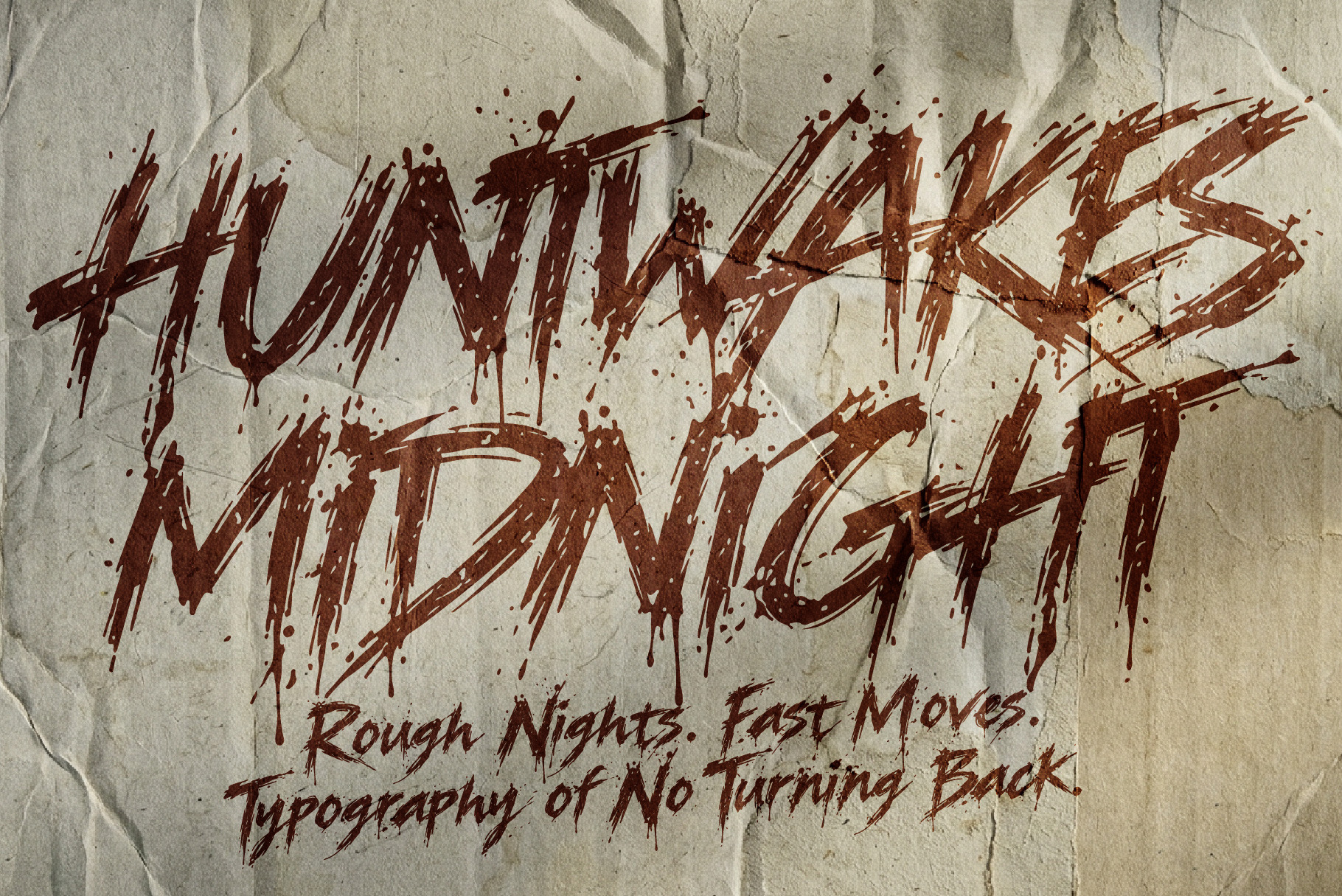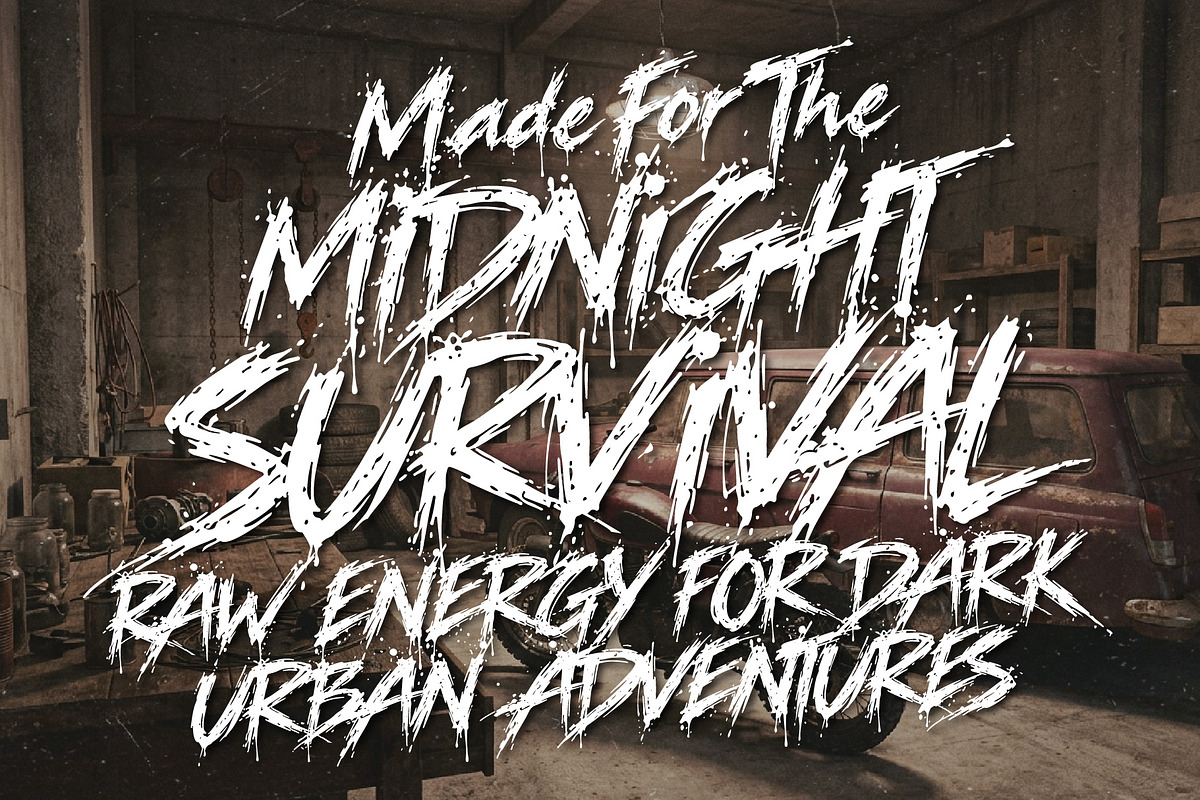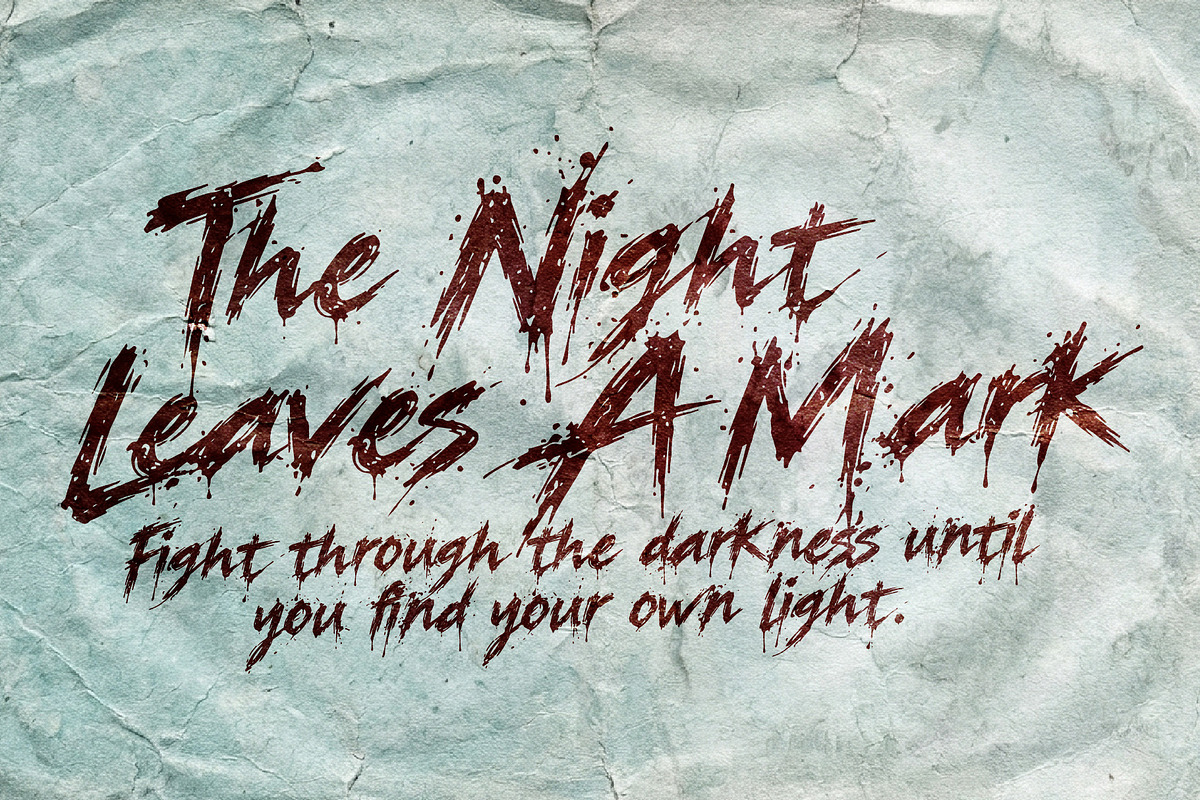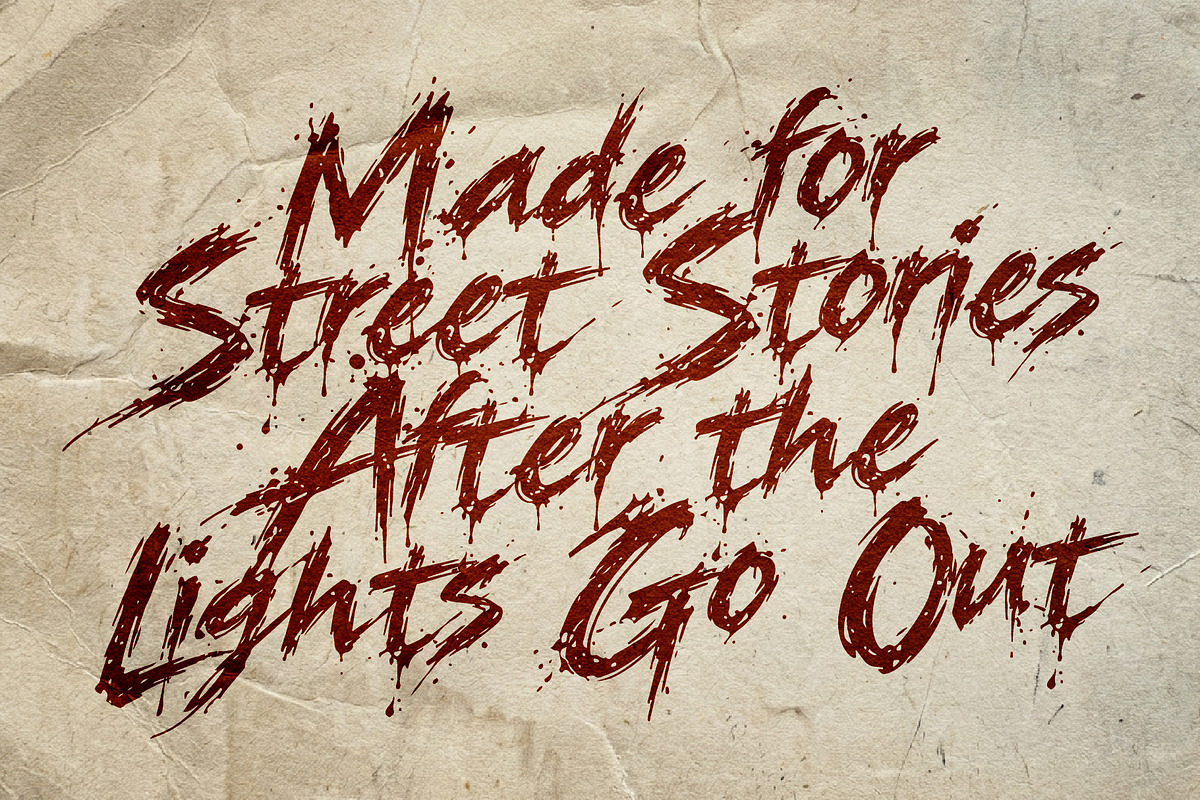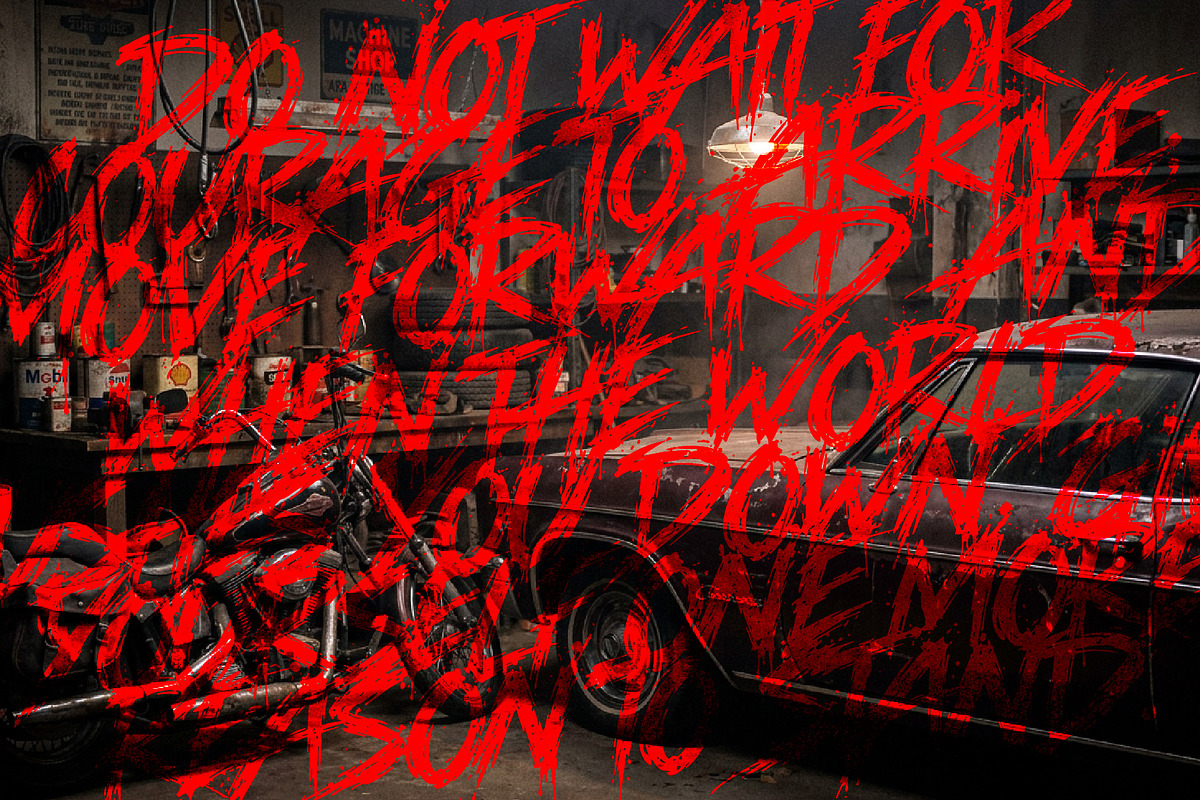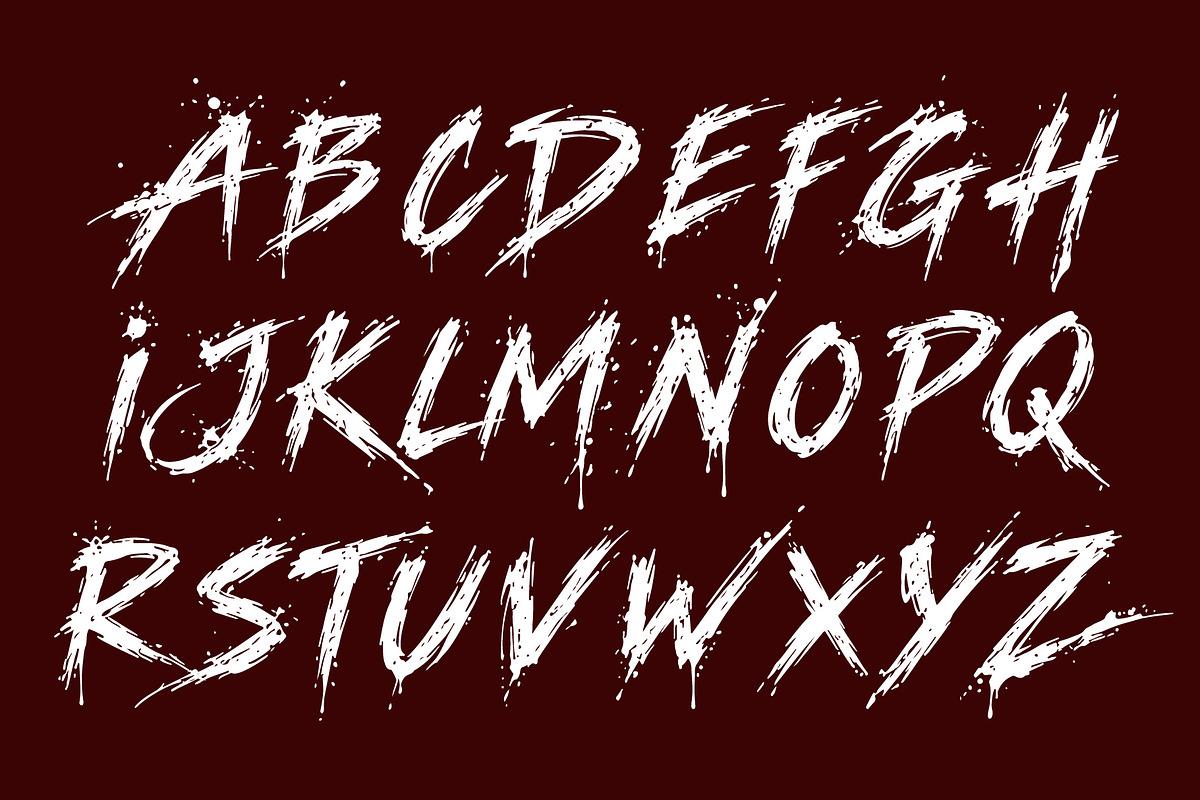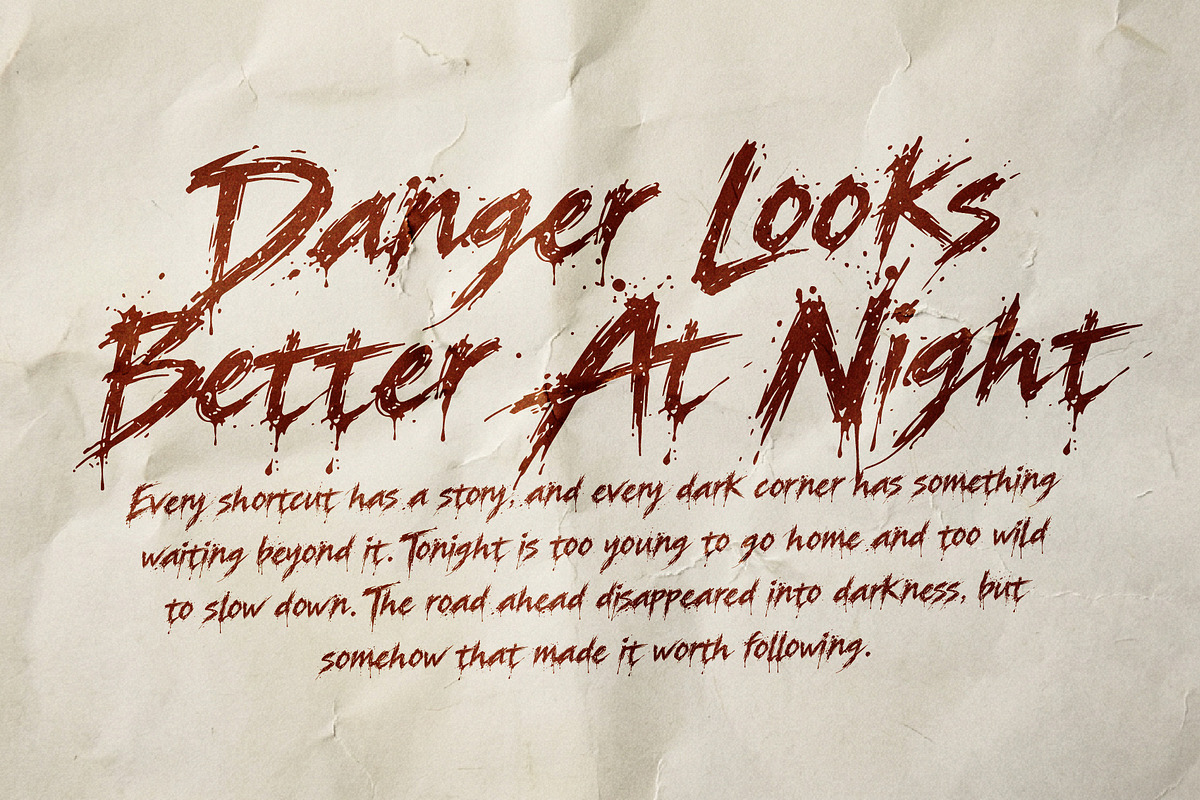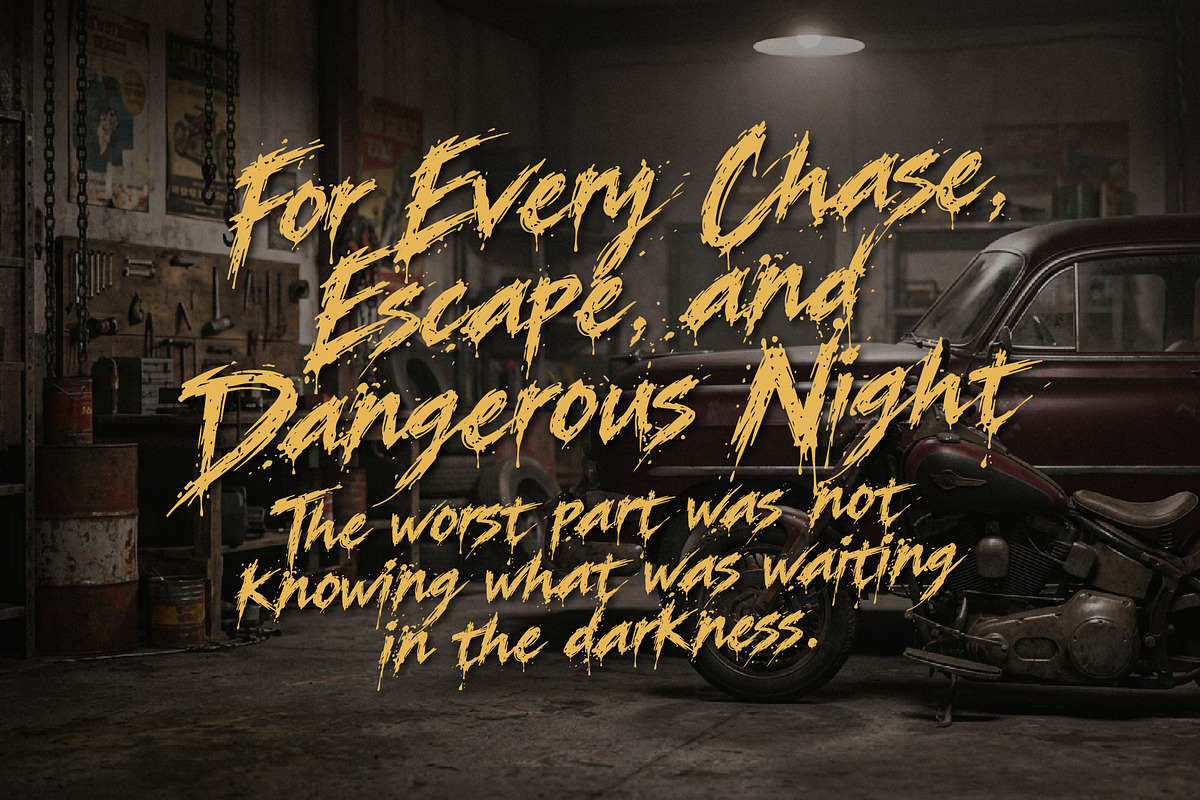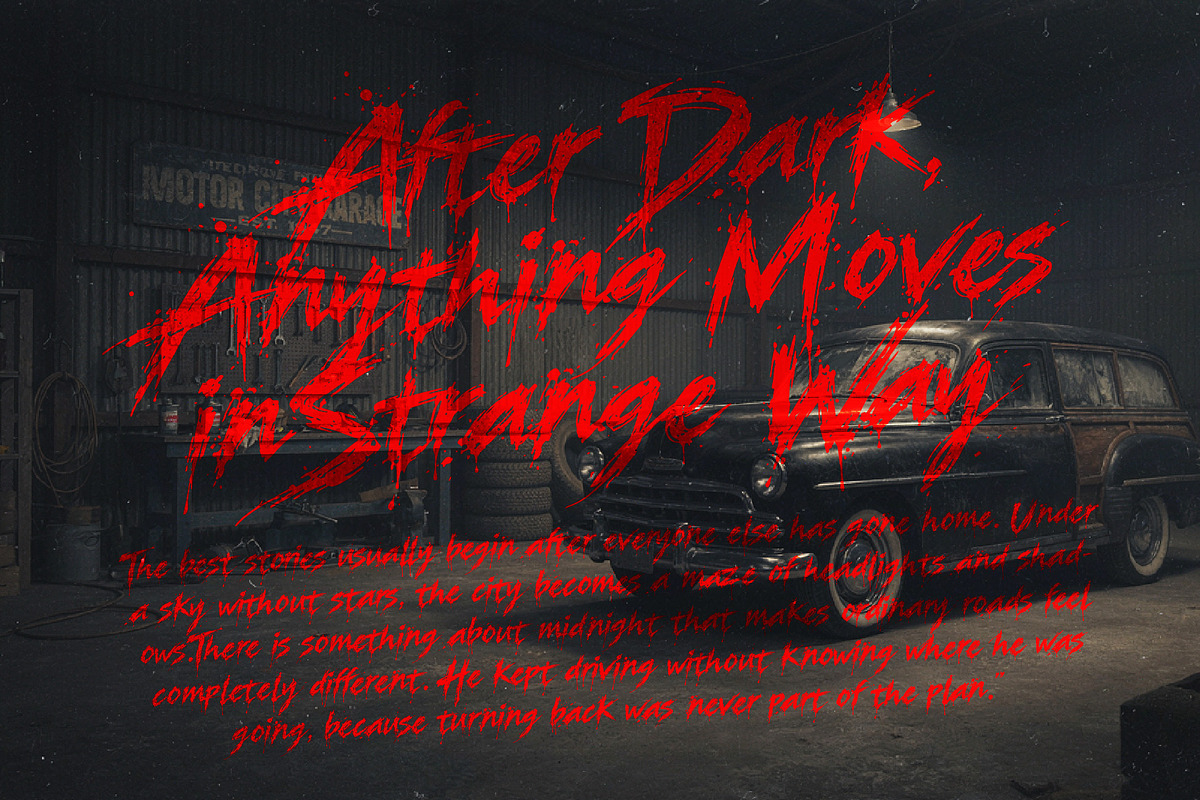
Huntwakes Midnight Slash Grunge font
Huntwakes Midnight is a gritty action display font that captures the restless energy of the city after dark. Its sharp slash marks, rough brush texture, and irregular letterforms create a fast-moving visual style that feels spontaneous, rebellious, and slightly dangerous.
The distressed finish gives the typeface a worn, underground character, while its energetic strokes bring a sense of motion to headlines and artwork. It feels at home among neon streets, midnight rides, underground music, concrete walls, racing culture, and anything that carries a little tension.
Designed for posters, streetwear, album artwork, racing graphics, action campaigns, skate designs, urban branding, gaming titles, event graphics, and bold merchandise. Huntwakes Midnight turns simple words into restless statements with attitude and edge.